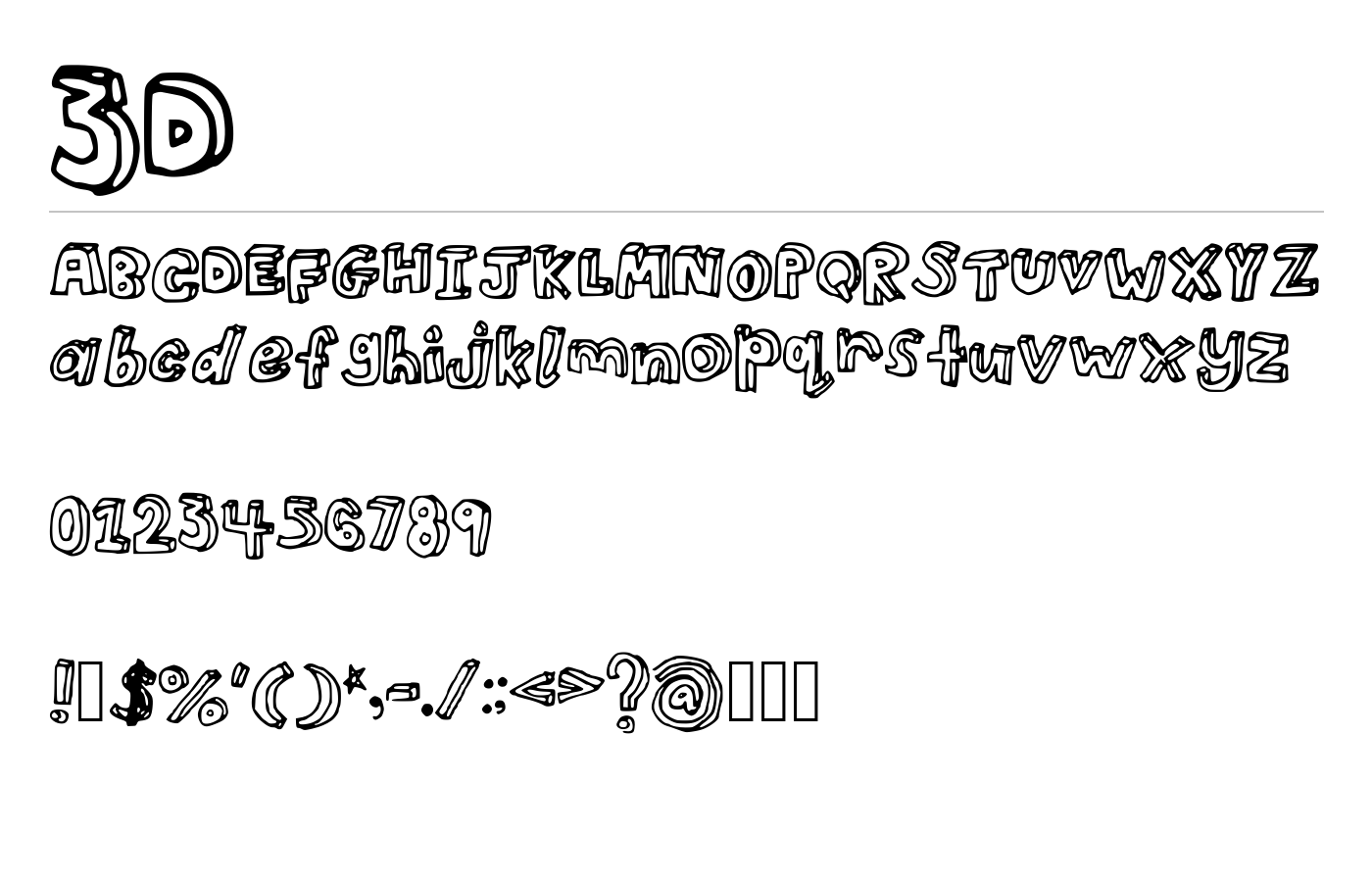
3D Font is a playful, hand-drawn sans serif typeface featuring bold, irregular letterforms with a whimsical three-dimensional outline effect. Its casual, sketchy style makes it perfect for creative projects, kids’ designs, or any branding that wants to convey fun, originality, and a dynamic, informal vibe. This font works well in headlines, posters, and packaging where a lively and eye-catching look is needed.
3D Font
About 3D Font
| Font family | 3D Font |